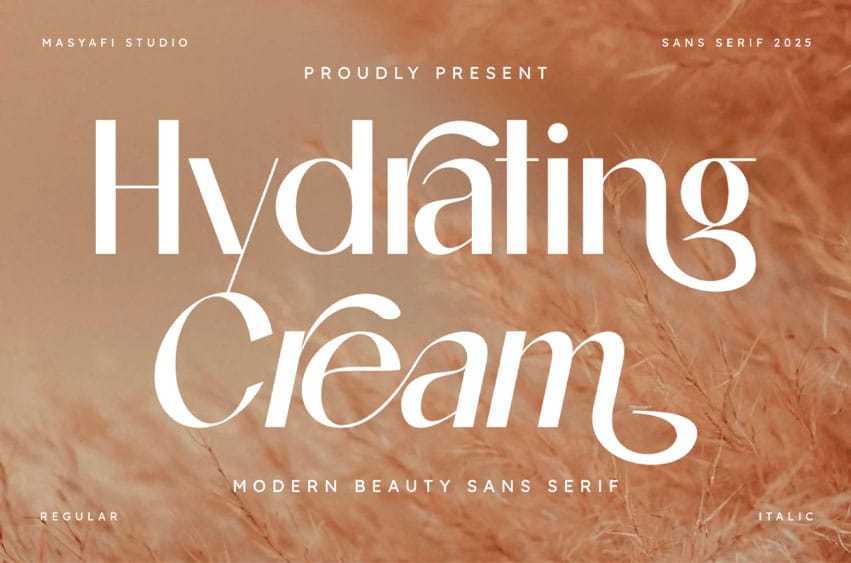
Hydrating Cream Font is a modern beauty sans-serif font with graceful curves and elegant details. Designed to bring a soft yet stylish touch, this font is perfect for beauty branding, skincare packaging, magazines, fashion logos, and editorial projects.
Available in Regular and Italic, Hydrating Cream offers versatility for both professional and creative designs.
- Regular & Italic styles
- Uppercase & lowercase
- Numerals & punctuation